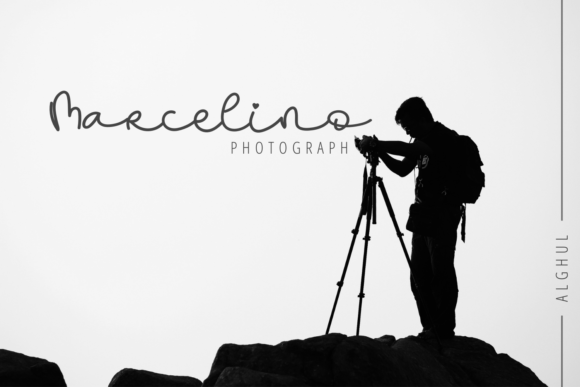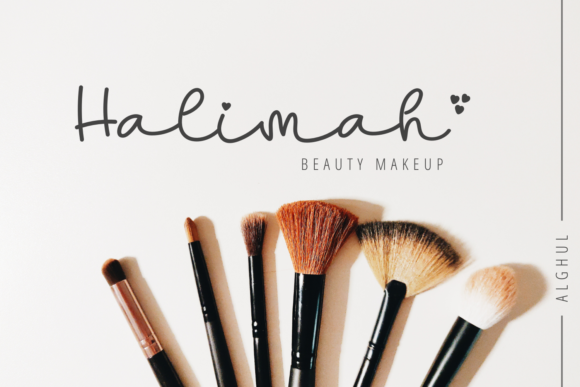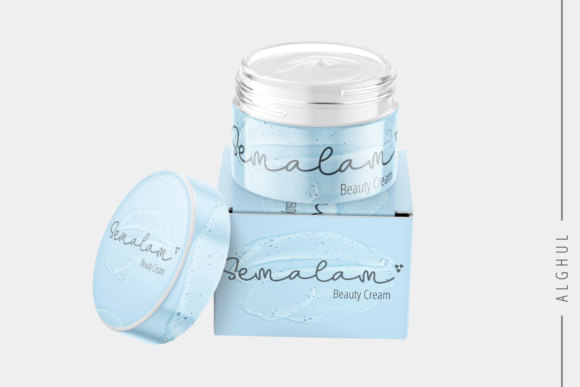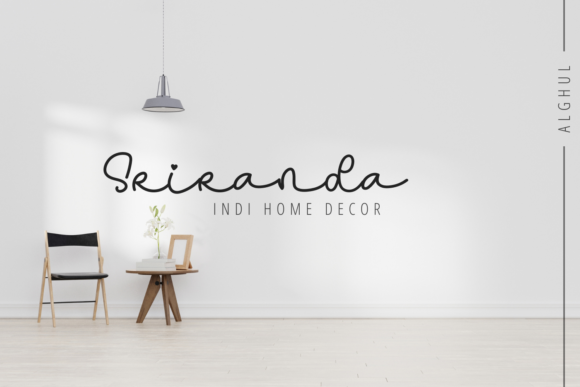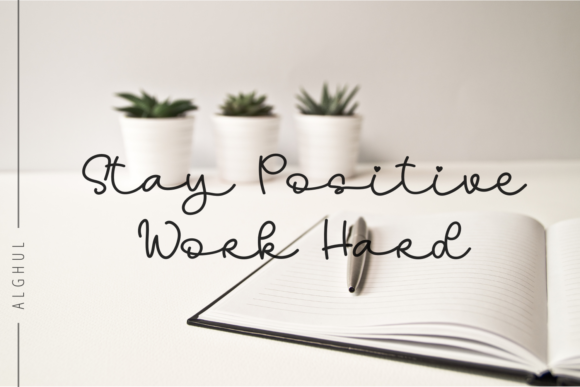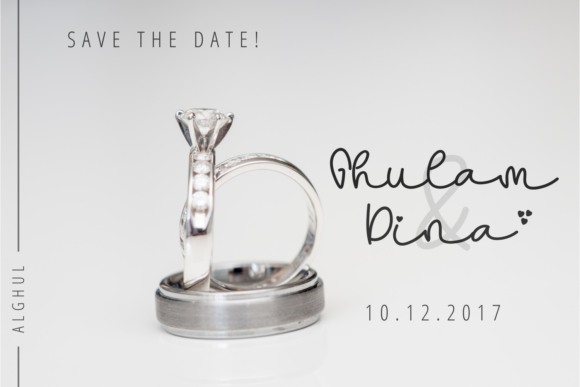
Hanimoon Font
About Hanimoon Font
Hanimoon feels equally charming and elegant. Standart punctuation glyphs are included. Compatible with such Photoshop and Adobe Illustrator It looks stunning on wedding invitations, thank you cards, quotes, greeting cards, logos, business cards and every other design which needs a handwritten touch.